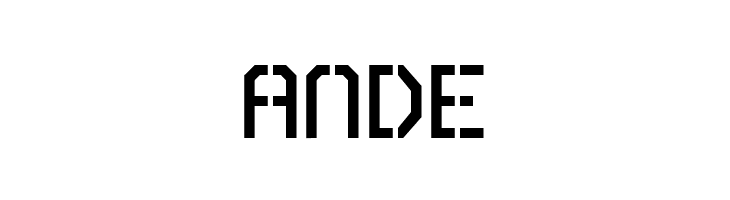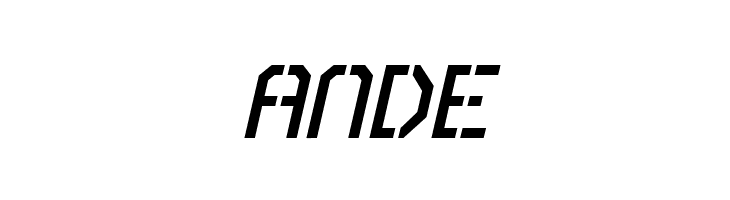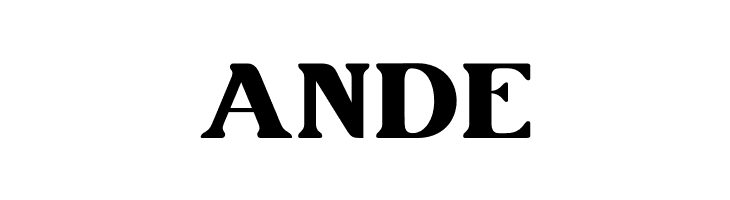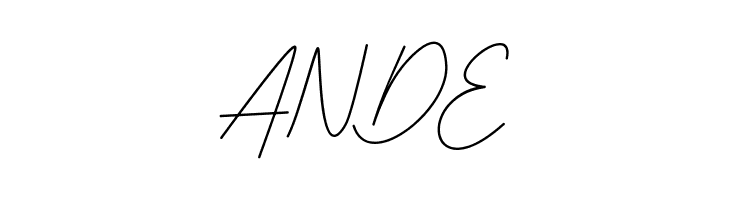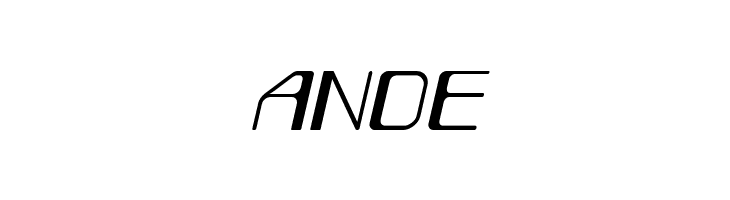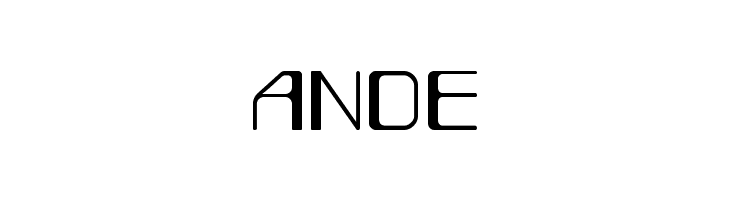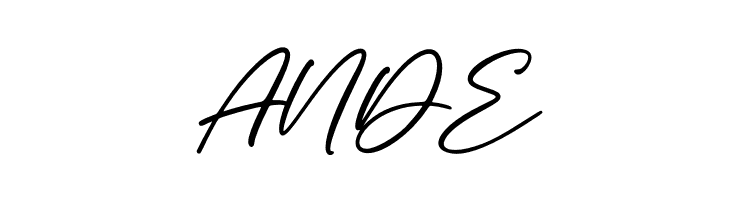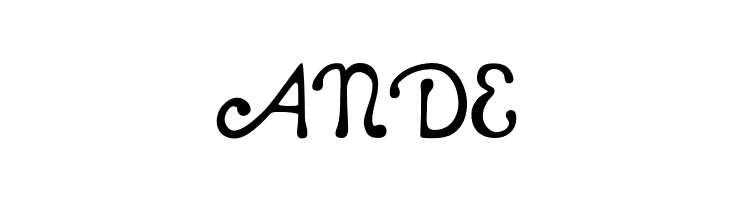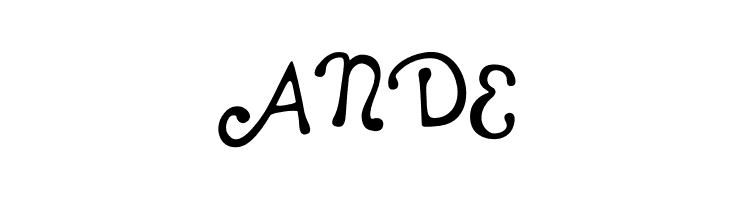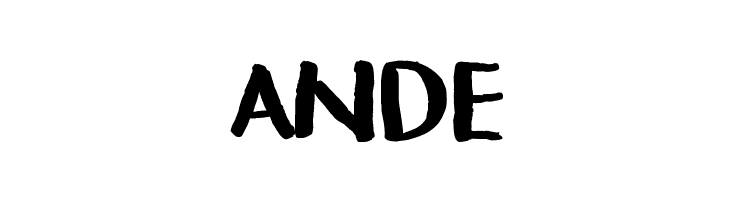
• Caracas Light Italic
A sleek, modern, light italic font with medium contrast and a streamlined appearance.
• CaracasCursiva
A modern, slanted font with consistent stroke width and a dynamic appearance.
• CaracasLG
A modern, geometric font with a sleek and compact design.
• CaracasLG Italic
A modern, italicized font with a sleek and dynamic design.
• Carade Personal Use
A bold, dynamic serif font with a classic yet modern appeal.
• Caraka
An artistic script font with flowing, interconnected letterforms and high contrast.
• Caramel
A lively, cursive font with fluid, interconnected letters and dynamic strokes.
• Caramel Candy
A bold, playful handwritten font with smooth, rounded characters.
• CaramelandVanilla
A bold, brush-style font with a dynamic, handwritten appearance.
• CaramelChestnutDEMO
A playful, casual handwritten font with smooth, rounded edges.
• Caramella Bold
An elegant, cursive script font with flowing letterforms.
• Caramellia
A playful, handwritten-style font with fluid, continuous strokes.
• CaramelloFree
A graceful script font with elegant, flowing curves and calligraphic style.
• CaramelloFree
An elegant, flowing script font with smooth, cursive strokes and sophisticated loops.
• CaramelMacchiato
A playful, handwritten-style font with rounded, flowing characters.
• CaramelMacchiatoBouncy
A playful, bouncy font with smooth curves and a whimsical style.
• Caramelo Bold
A bold, playful font with rounded edges and a whimsical style.
• Caramelo-Bold
A bold, playful font with rounded edges and a whimsical style.
• Carango
A bold, hand-drawn font with an energetic and playful style.
A bold, playful script font with rounded strokes and smooth curves.
• Caravela PERSONAL USE ONLY
An elegant script font with flowing curves and intricate details, reminiscent of classic calligraphy.